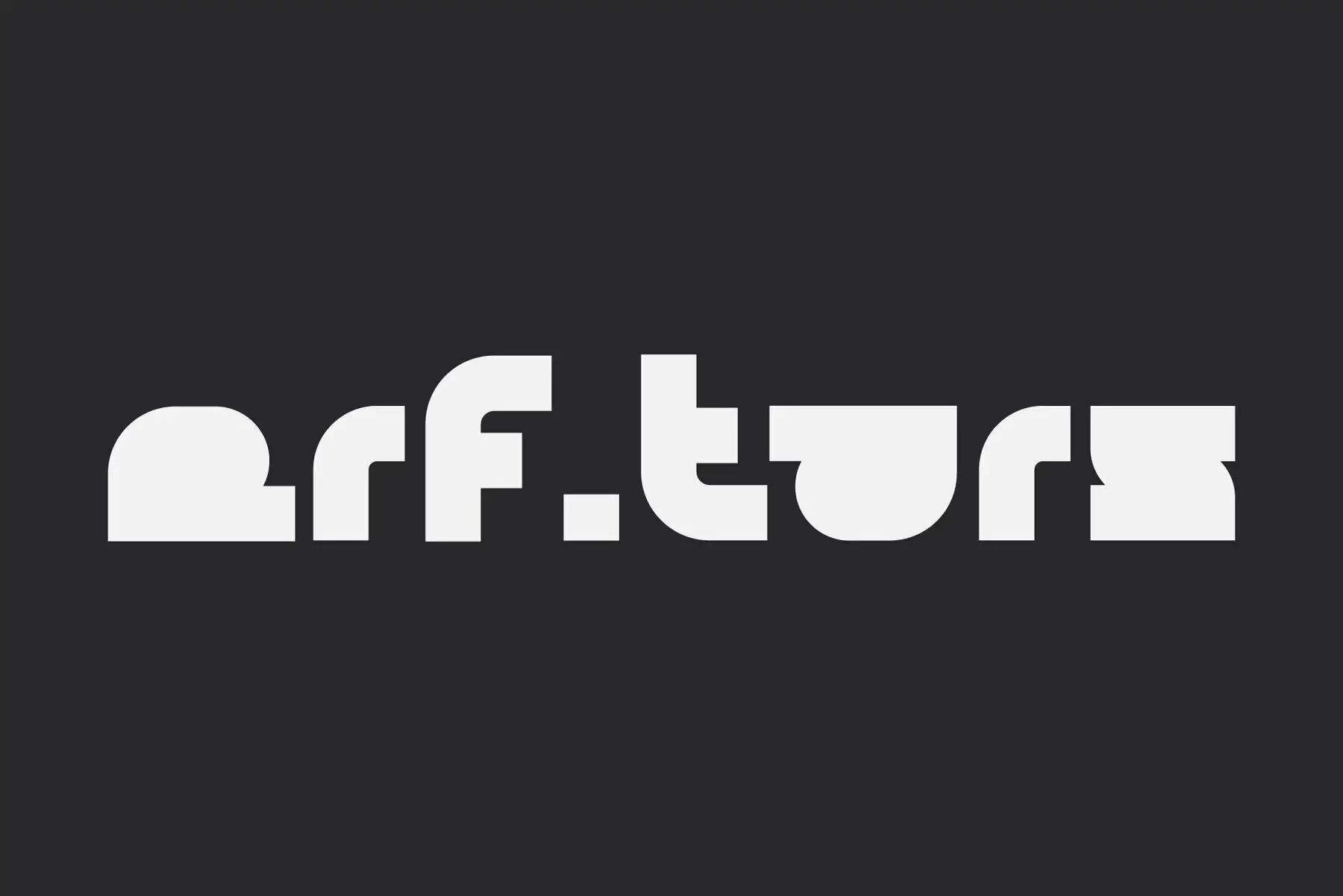
ERF Tars Font
ERF Tars is a futuristic display font family marked by its sharp geometric angles and brutalist aesthetics. This font's bold and modular design creates a distinctive and unconventional voice, ideal for striking headlines, dynamic logos, and ultra-modern branding. Featuring 24 styles, including 12 upright and 12 italic variations, ERF Tars offers a broad spectrum of expressive possibilities, ranging from the subtle Whisper to the authoritative Doom. Each character is designed for maximum impact, ensuring clarity and visual harmony. Whether utilized in tech branding, poster design, or user interface aesthetics, ERF Tars adds structure and a unique personality to any project.ERF Tars: Bold Geometric Display Font